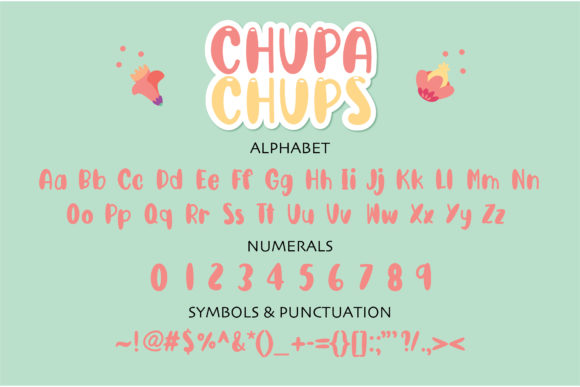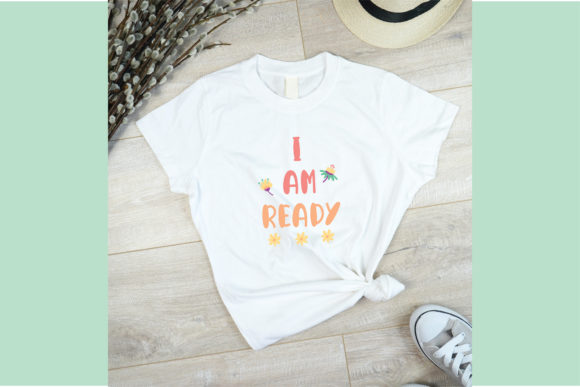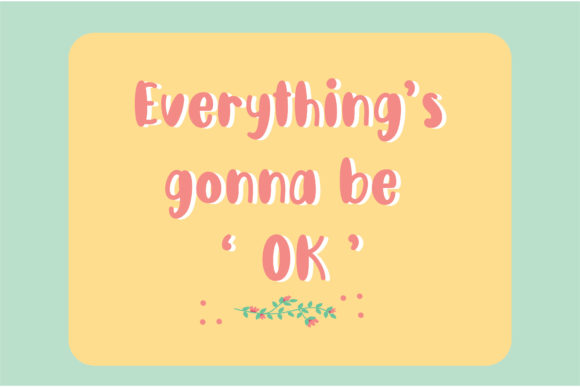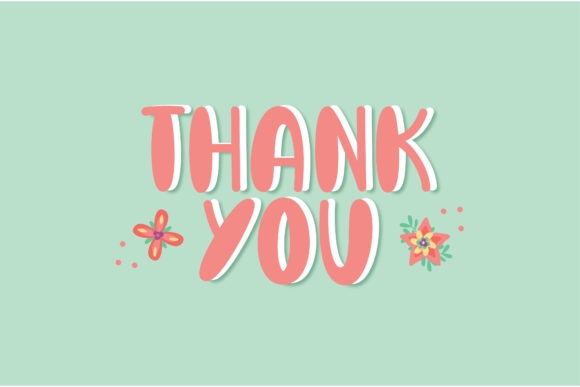
Discover the Delightful World of Chupa Chups Font
Are you a designer or crafter looking for a font that can add a touch of whimsy and playfulness to your projects? Look no further than the Chupa Chups font! This adorable display font is perfect for creating eye-catching designs that are sure to capture the attention of your audience. In this article, we’ll dive into the world of Chupa Chups font, exploring its unique features, flexibility, and endless possibilities for creative expression.
What is Chupa Chups Font?
Chupa Chups font is a cute and flexible display font that has taken the design world by storm. Its natural and unique style makes it incredibly fitting for a wide range of designs, from playful and fun to elegant and sophisticated. The font’s distinctive charm lies in its hand-drawn feel, which gives it a personal and approachable vibe that’s hard to resist.
Key Features of Chupa Chups Font
So, what makes Chupa Chups font so special? Here are some of its key features:
• Unique and Hand-Drawn Style: Chupa Chups font boasts a one-of-a-kind, hand-drawn style that sets it apart from other fonts.
• Flexibility: This font is incredibly versatile, making it suitable for a wide range of designs, from logos and branding to posters, packaging, and more.
• Cute and Playful: Chupa Chups font is perfect for designs that require a touch of whimsy and playfulness.
• Elegant and Sophisticated: Despite its playful nature, Chupa Chups font can also be used to create elegant and sophisticated designs.
Endless Variations and Creative Possibilities
One of the most exciting things about Chupa Chups font is its endless variations and creative possibilities. With this font, you can experiment with different styles, colors, and textures to create truly unique designs. Whether you’re a seasoned designer or a crafty DIY enthusiast, Chupa Chups font is sure to inspire you to try new things and push the boundaries of your creativity.
How to Use Chupa Chups Font in Your Designs
• Logos and Branding: Use Chupa Chups font to create a memorable and eye-catching logo that reflects your brand’s personality.
• Posters and Flyers: Add a touch of whimsy and playfulness to your posters and flyers with Chupa Chups font.
• Packaging Design: Use Chupa Chups font to create eye-catching packaging that stands out on store shelves.
• Digital Design: Experiment with Chupa Chups font in your digital designs, such as social media graphics, blog posts, and more.
Tips and Tricks for Working with Chupa Chups Font
• Experiment with Colors: Try pairing Chupa Chups font with different colors and textures to create unique and eye-catching designs.
• Play with Font Sizes: Experiment with different font sizes to create visual interest and hierarchy in your designs.
• Add Decorations: Consider adding decorations, such as patterns or illustrations, to enhance your designs and make them more engaging.